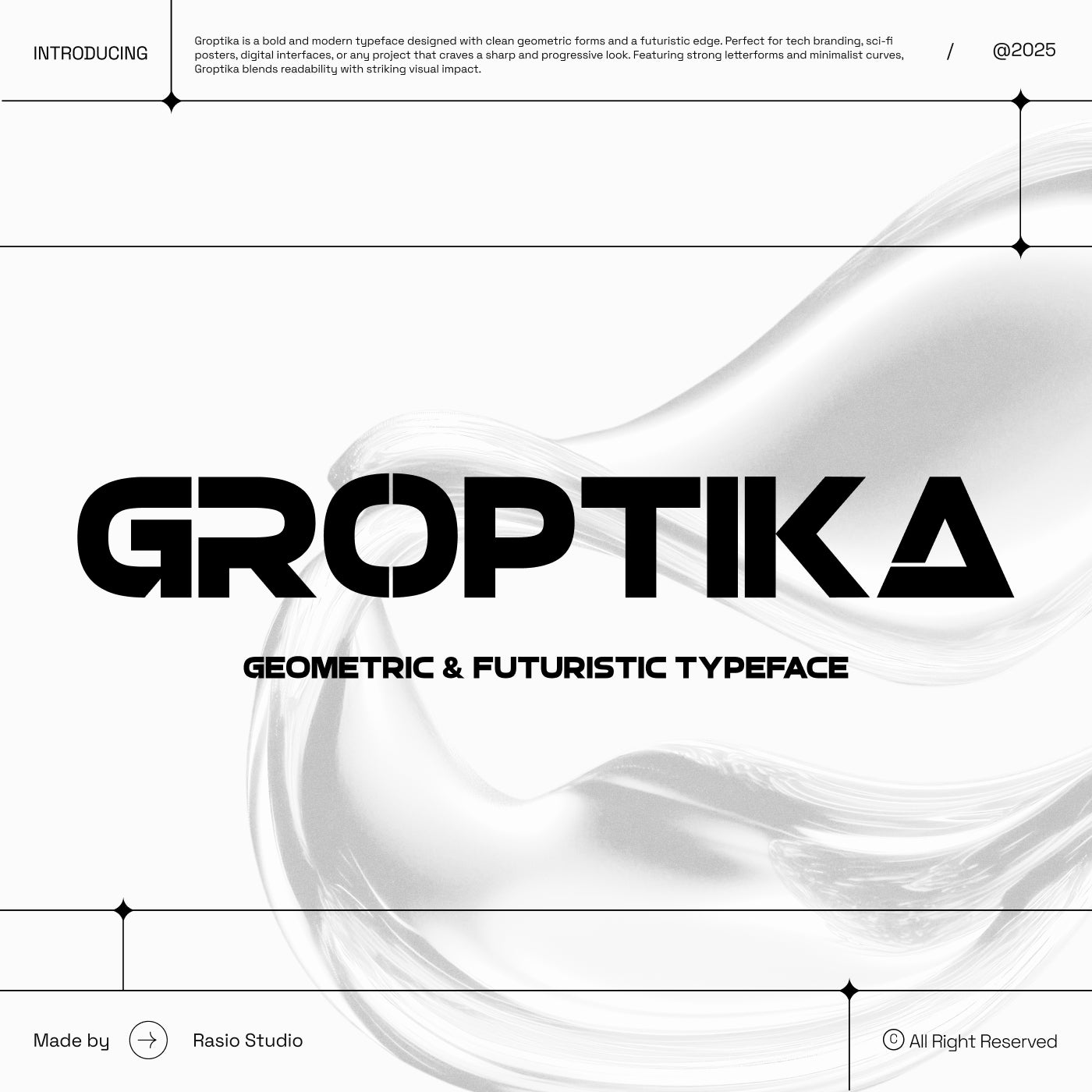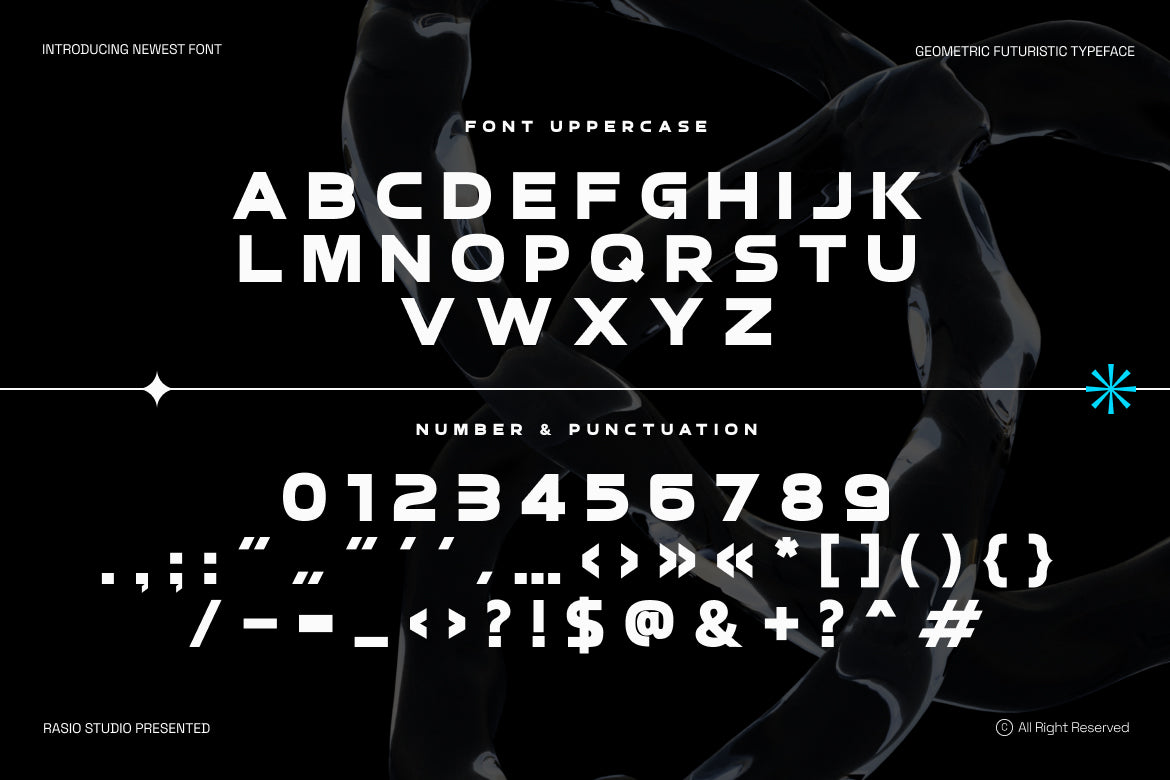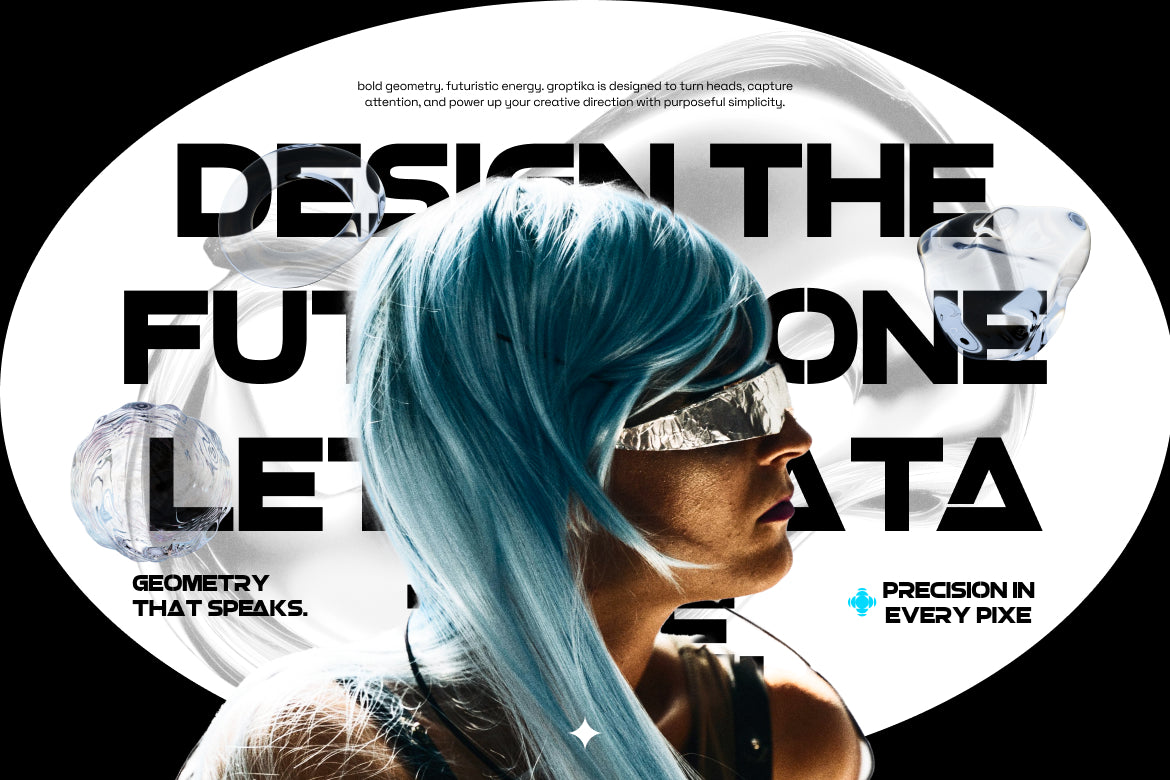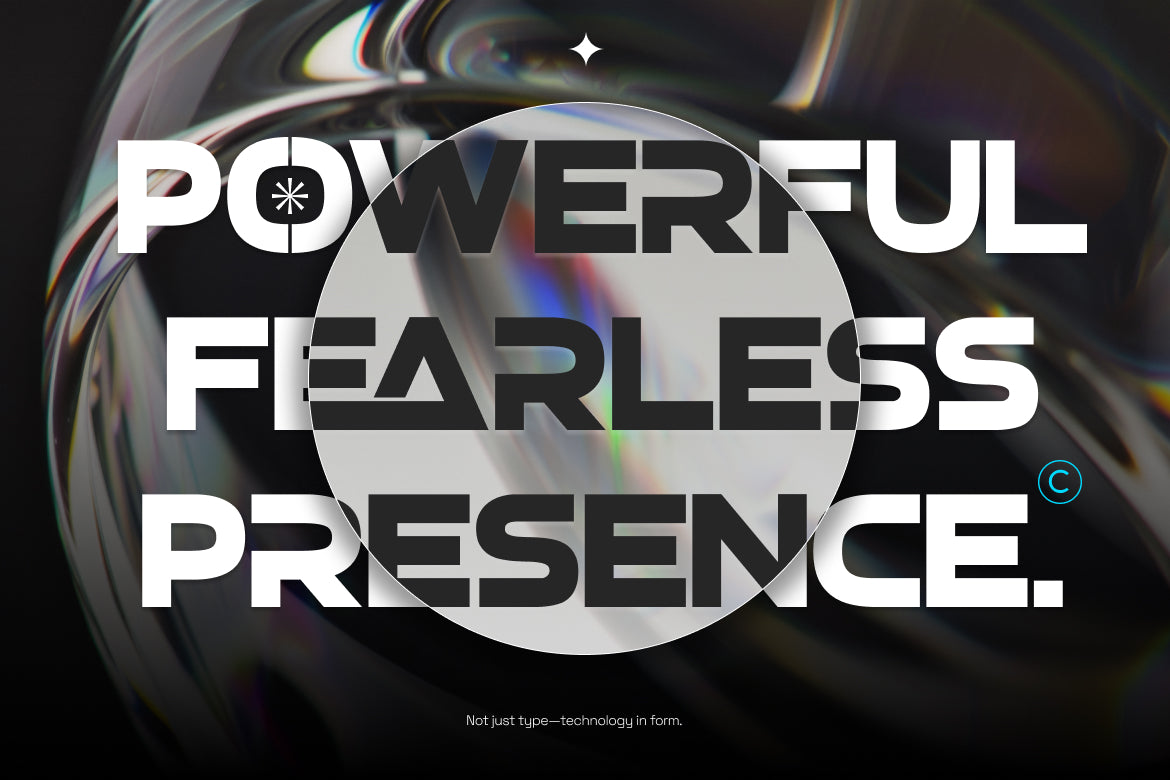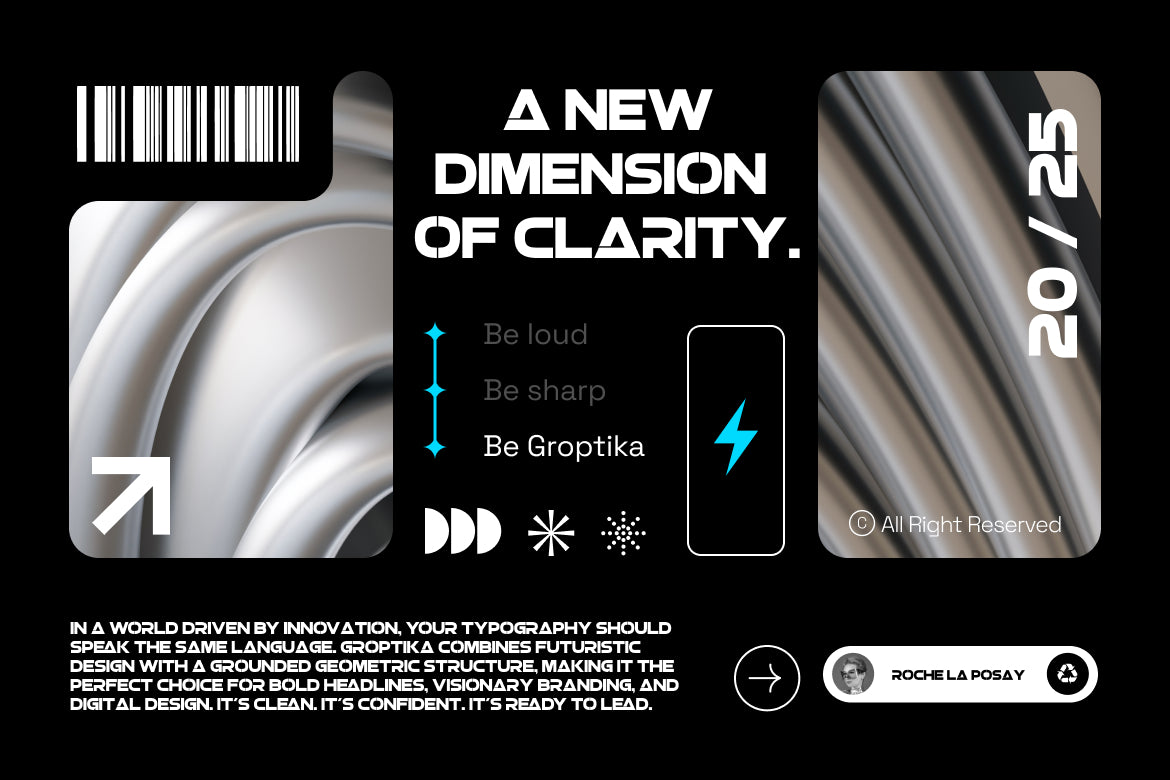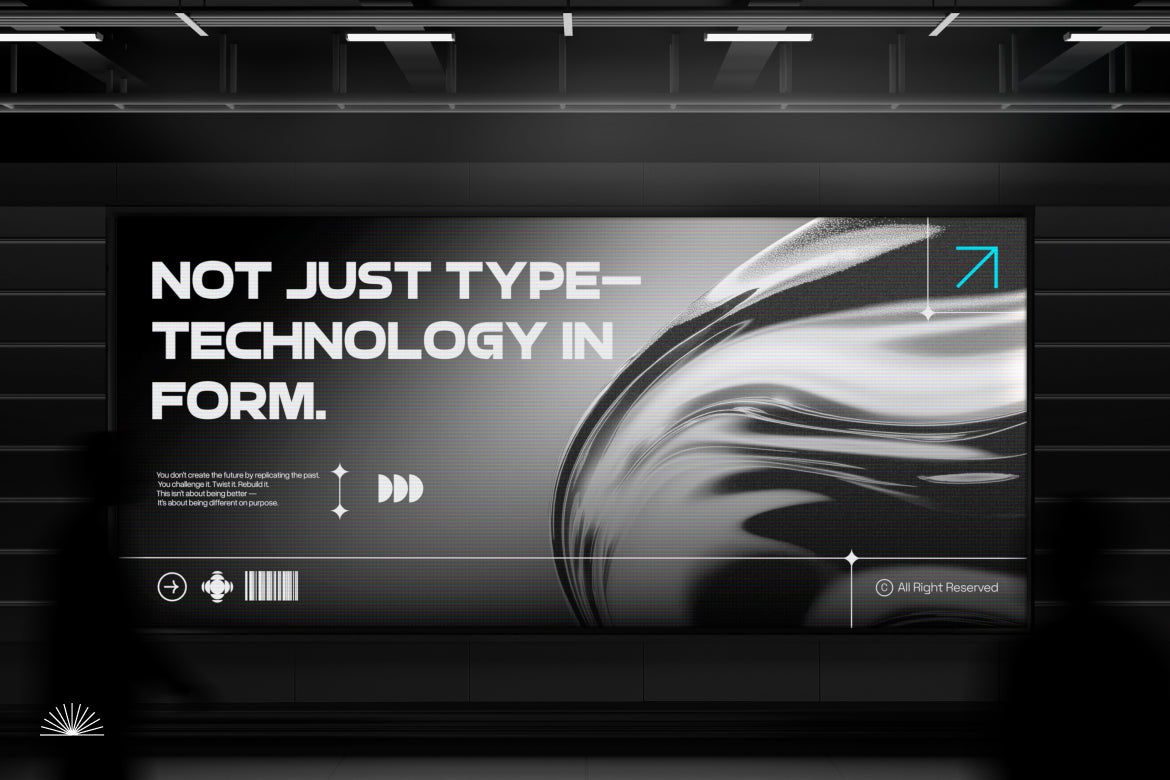
Groptika Geometric Futuristic Typeface Font
Groptika is a bold geometric typeface inspired by futuristic design, cutting-edge technology, and cyber aesthetics. Built with sleek precision and high readability, it’s designed to amplify clarity and presence in modern branding and UI/UX environments. The typeface features sharp terminals, monospaced elements, and strong modularity making it perfect for tech products, innovation campaigns, esports branding, and digital product packaging. Its synergy of form, function, and futuristic energy makes Groptika the ideal font for forward-thinking creatives and brands that speak the language of tomorrow.
Groptika is a bold geometric typeface that features sharp terminals, monospaced elements, and strong modularity, designed for high readability in modern branding and UI/UX environments. It is available in TTF, OTF, and WOFF formats, includes uppercase and lowercase letters, as well as numerals and punctuation.